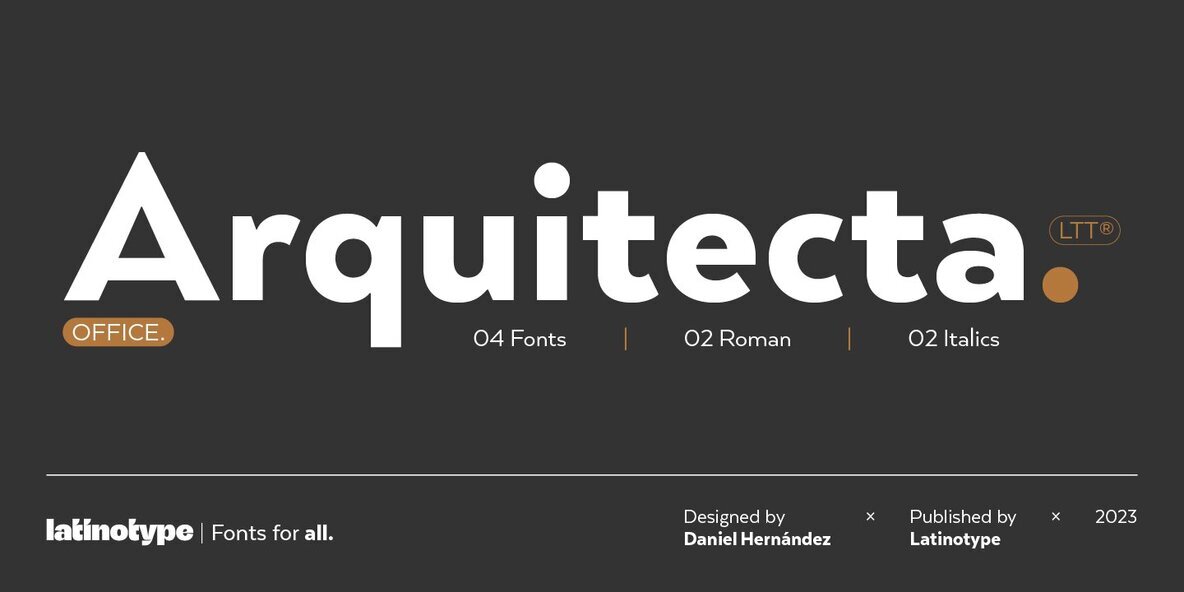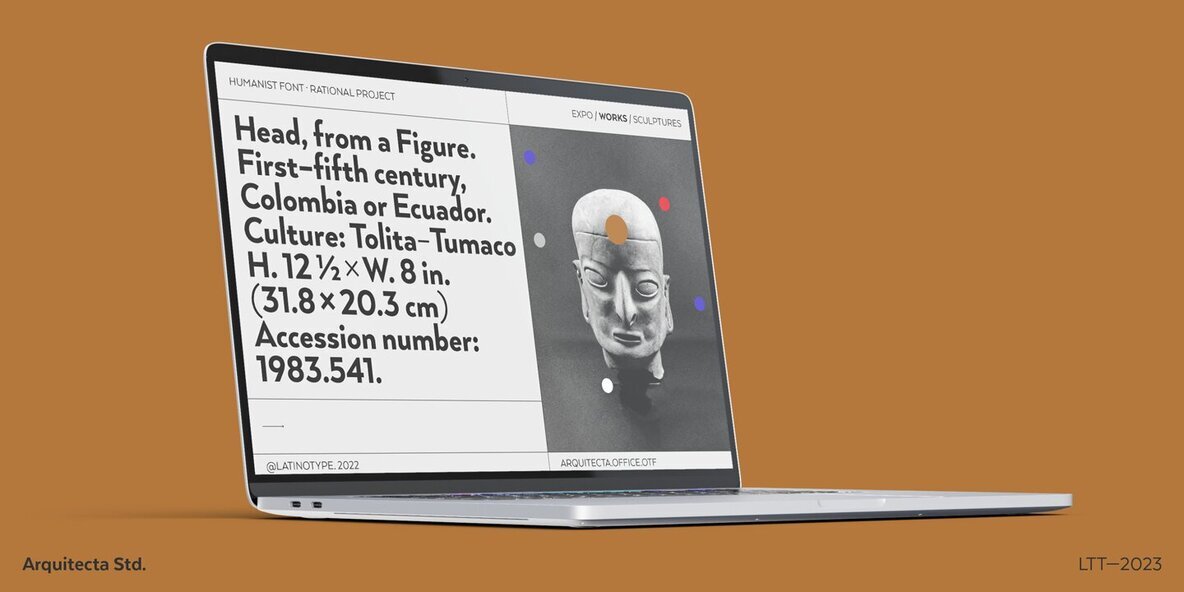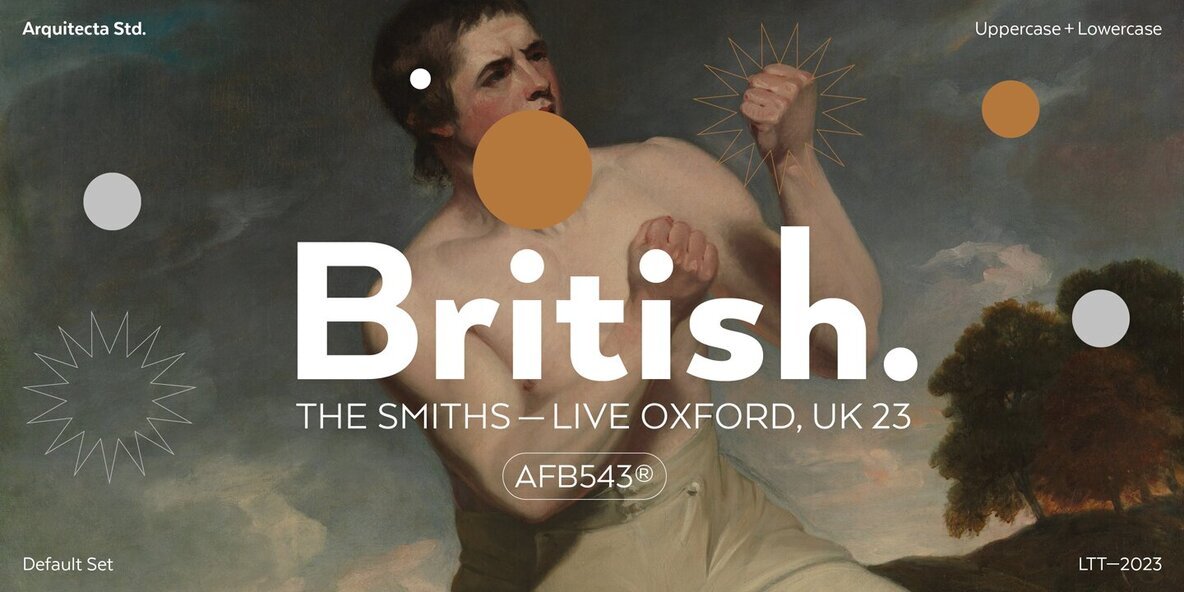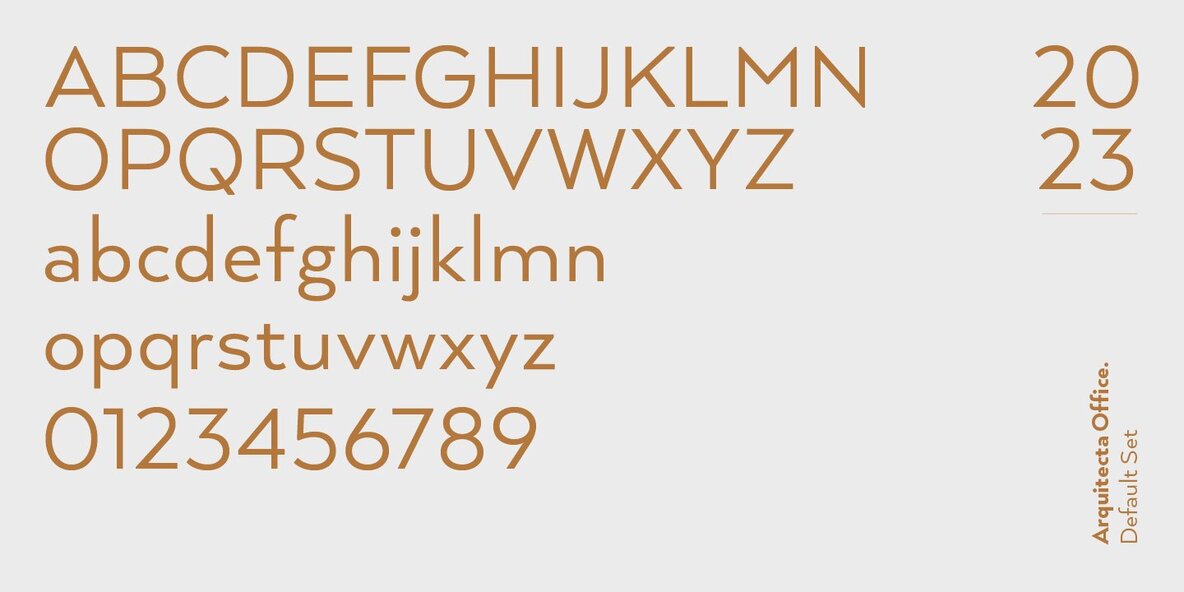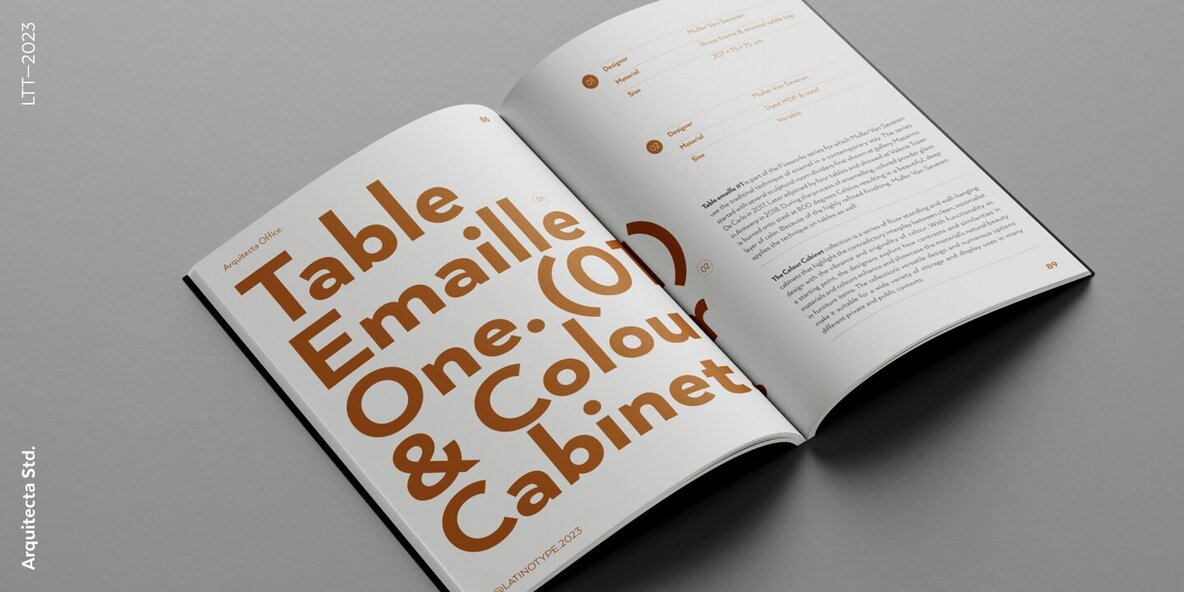
Arquitecta Office Font
We have adapted the version of our Arquitecta font for use in Microsoft Office™. Arquitecta Office update:
It only has 4 variants: regular, italic, bold and bold italic.
Font weights have been named in a way that can be clearly shown up in the font list in Office™ programs for the sake of a good hierarchy (the bold variant is quite bold and does not look the same as the original font).
Improvements of proportions and drawing.
The set was extended to the current one of Latinotype.